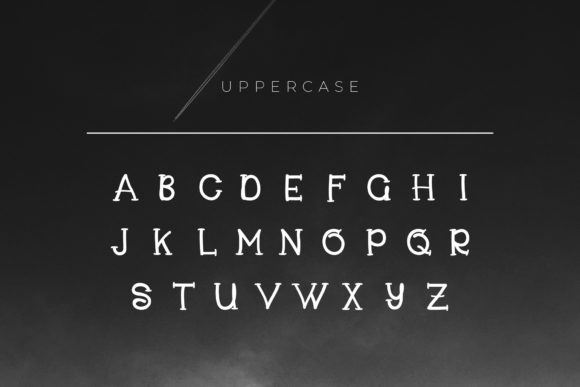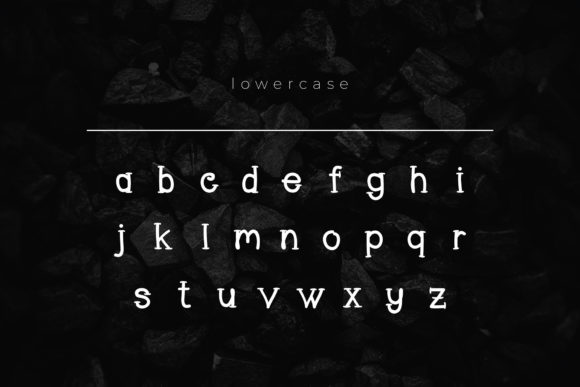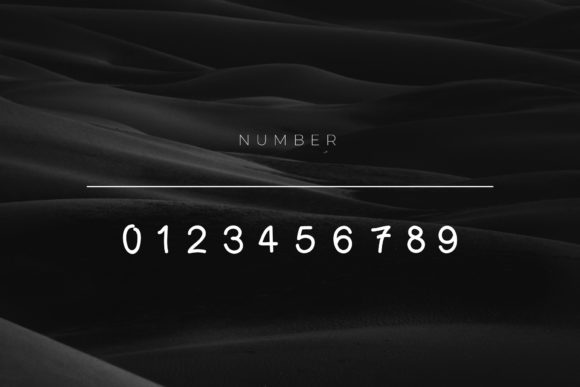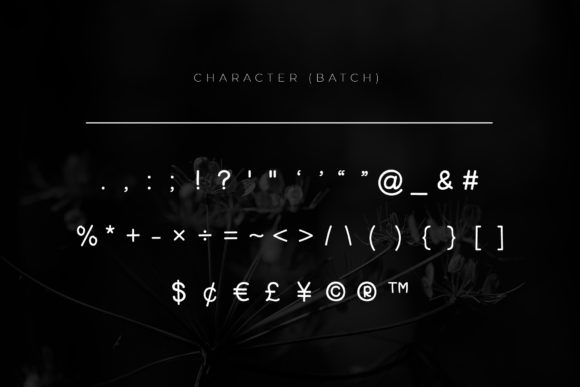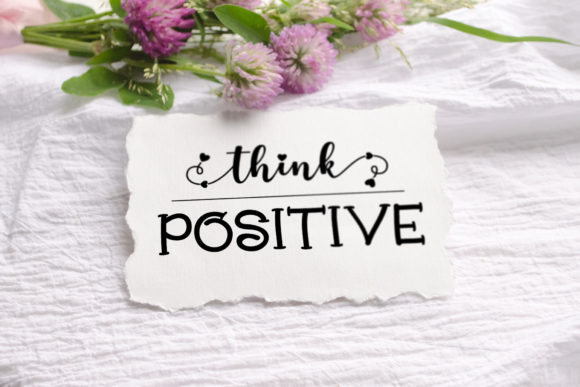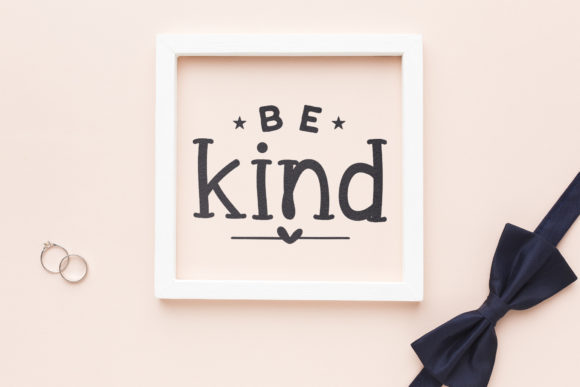
Introduction to Quandam Font
Have you ever been browsing through your favorite crafting store, and suddenly, you stumble upon the perfect font for your next creative project? That’s exactly what happened to many designers when they discovered the Quandam Font. This beautiful, handwritten display font has taken the design world by storm with its smooth curves and stylish aesthetic.
Quandam Font is more than just a pretty face; it’s a valuable resource for designers looking to add a touch of elegance to their projects. With its high-quality design and transparent background, this font is perfect for crafting unique wall displays, advertisements, product packaging, and much more. Whether you’re a seasoned designer or just starting out, the Quandam Font is a must-have in your design arsenal.
Key Features of Quandam Font
- High-quality design with a unique, creative style, ideal for various projects.
- Includes a transparent background, making it easy to integrate with any design resource.
- Perfect for use in creative projects, such as graphic design, digital art, and more.
- Quandam Font is a versatile design resource, suitable for both personal and commercial use.
Honest Review: Quandam Font
As a designer, I’m always on the lookout for high-quality design resources to elevate my creative projects. Recently, I stumbled upon the Quandam Font, which has left me impressed.
Here are some aspects that work well for me:
- ✨ It’s available in a range of weights and styles, making it versatile for various design applications.
- ✨ The transparent background option is a game-changer for designers who need to create intricate designs.
However, I do have some limitations to mention:
- ⚠️ Some users may find the font’s unique style a bit overwhelming for certain design projects.
Overall, I’m impressed with the Quandam Font’s quality and versatility. It’s a solid addition to any designer’s toolkit, and I appreciate the transparent background feature. While it may have some limitations, I think it’s a valuable resource for designers working on creative projects.
Quandam Font is a high-quality font ideal for creative projects, including posters, flyers, and social media graphics. You can use it in popular design platforms like Canva, Adobe Photoshop/Illustrator, or PowerPoint/Word.
The Quandam Font is perfect for designing logos, branding materials, and marketing materials. Its high-quality design and transparent background make it an ideal choice for creative projects that require a professional and modern look.